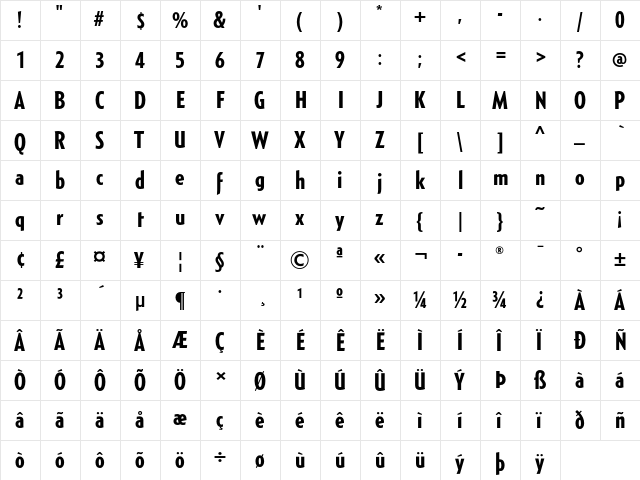
Generica Condensed Std Bold Font Preview
Design Context for Generica Condensed Std Typeface
Generica Condensed Std is a composed and adaptable typeface that performs quietly and consistently across a wide range of design contexts. The heavy weight commands attention and anchors typographic hierarchies. The condensed width makes it efficient for tight spaces without sacrificing legibility.
Pro Tip: Pair Generica Condensed Std with a font of contrasting weight or personality to build a more expressive typographic hierarchy.